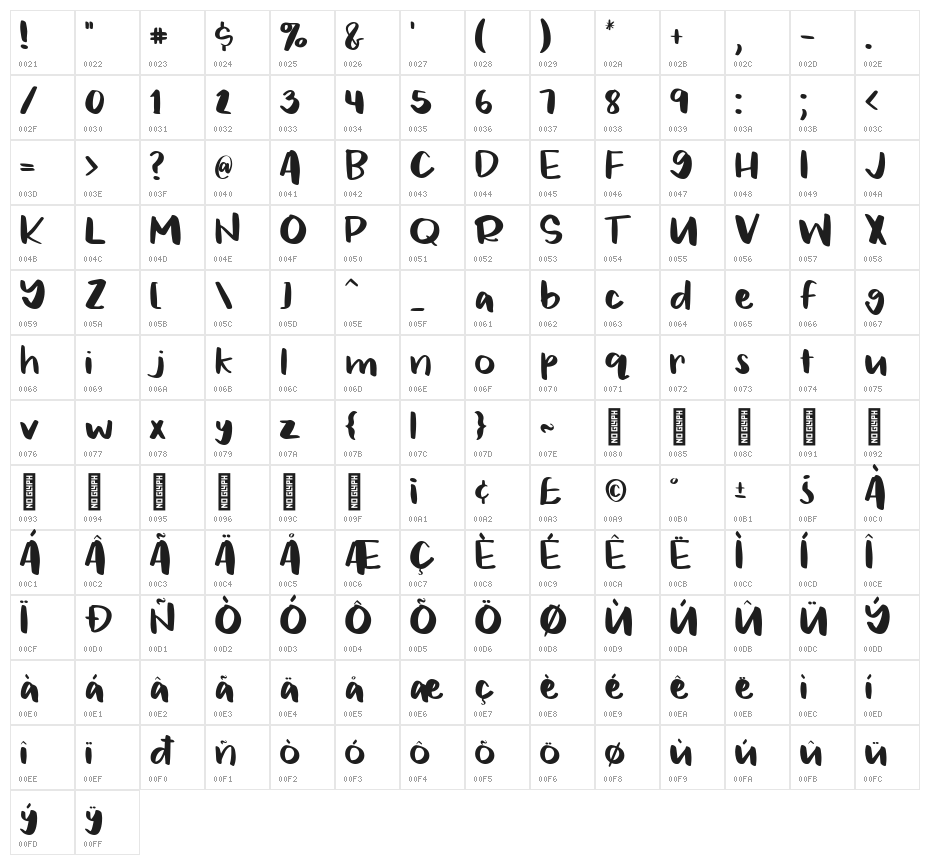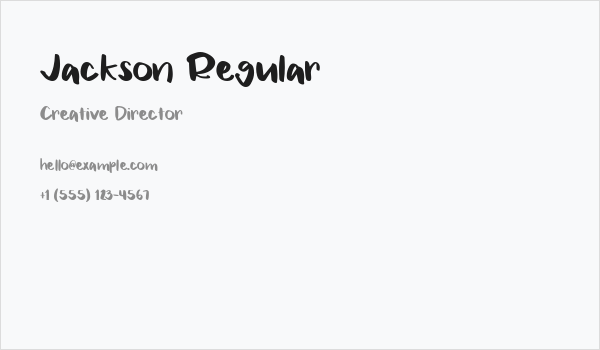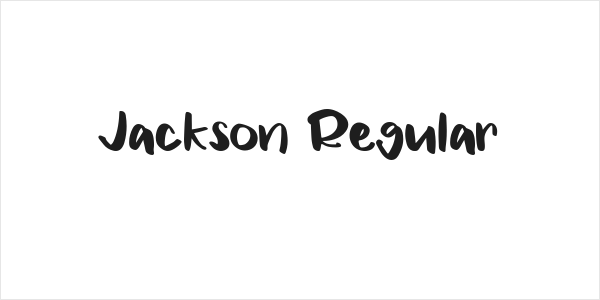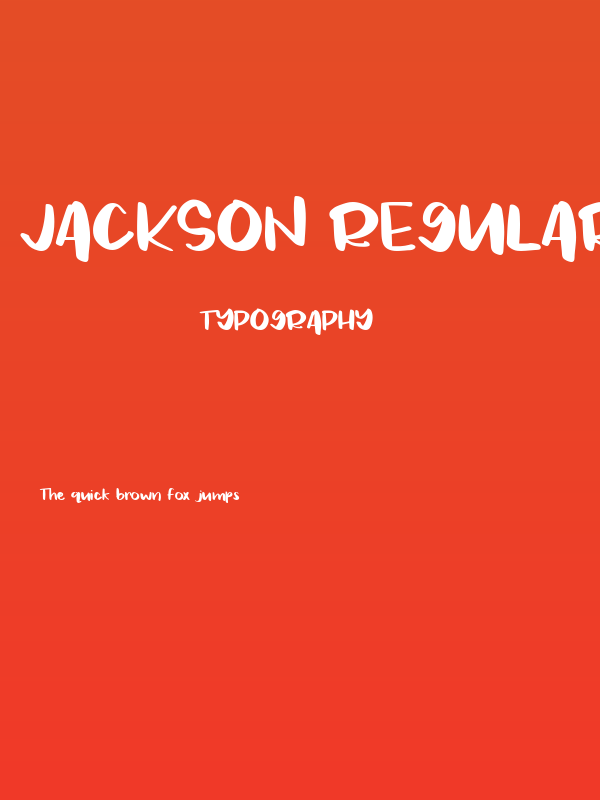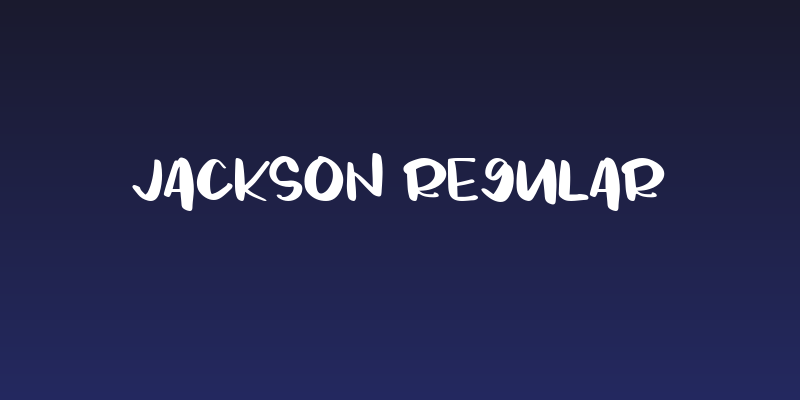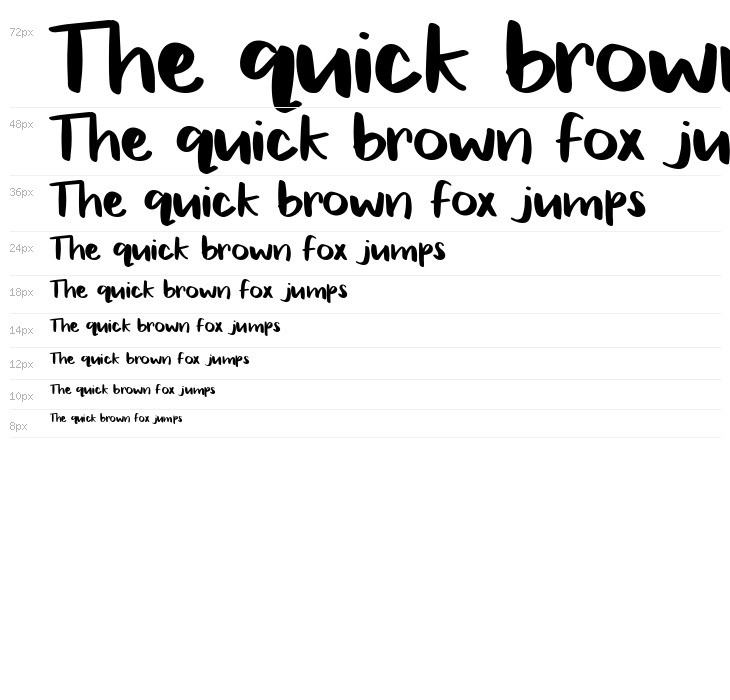
Jackson Regular Font
Jackson Regular Description
This font features a bold and playful handwritten style, characterized by its thick strokes and smooth curves. The letters are slightly slanted, giving a dynamic and energetic feel. The uppercase and lowercase letters maintain a consistent flow, with rounded edges that enhance its friendly appearance. The numerals are equally bold, ensuring readability while maintaining the overall aesthetic. Special characters are creatively designed, adding to the font's versatility. This style is perfect for projects that require a personal touch or a casual, approachable vibe.
| Overall Style | Playful, Casual |
| Proposed Projects | Ideal for greeting cards, children's books, playful branding, and social media graphics. |